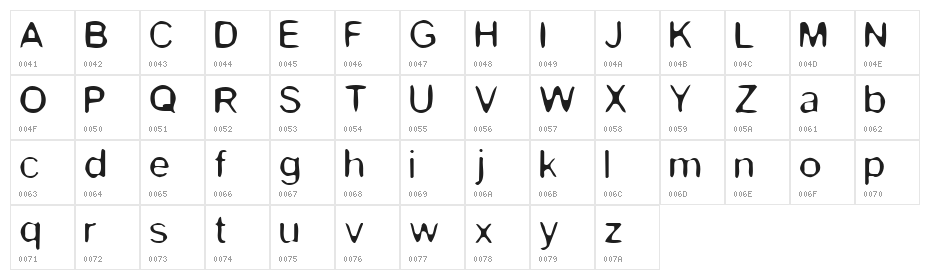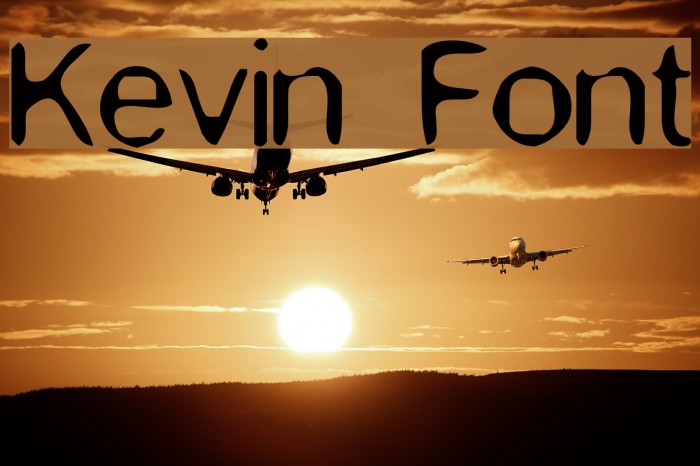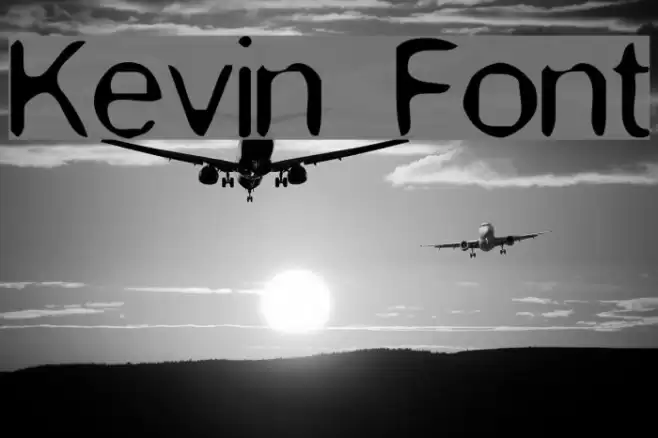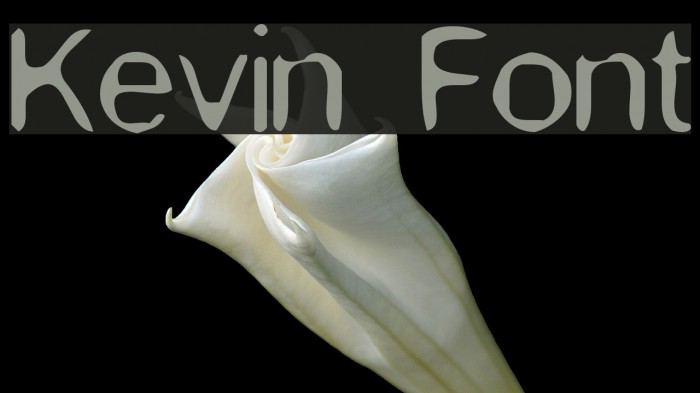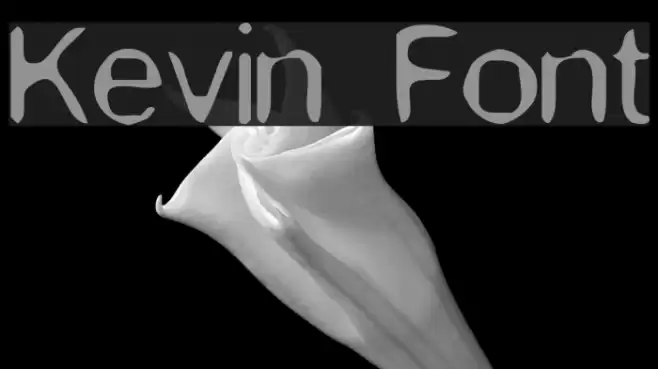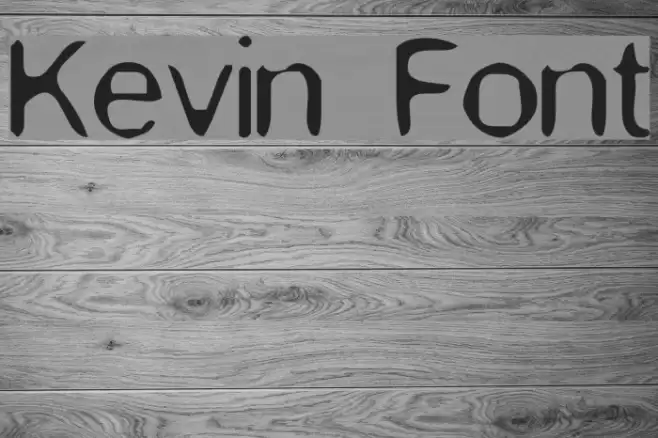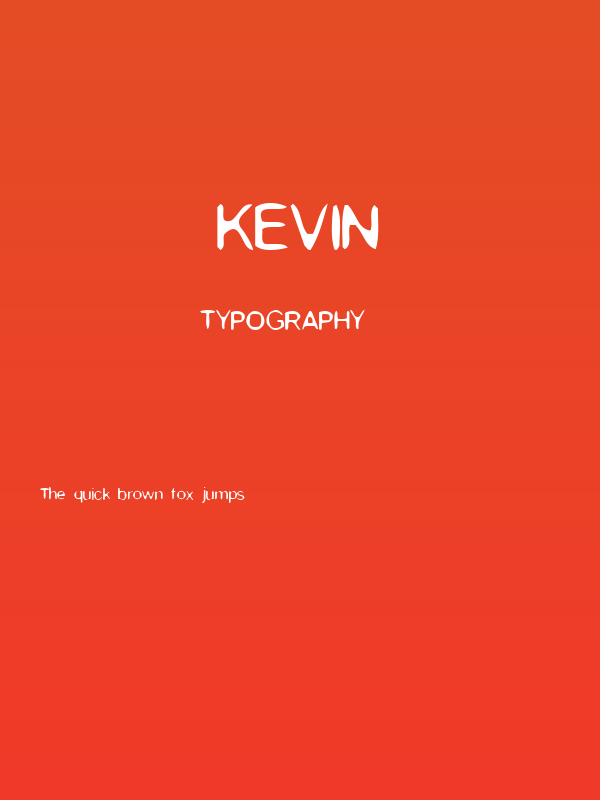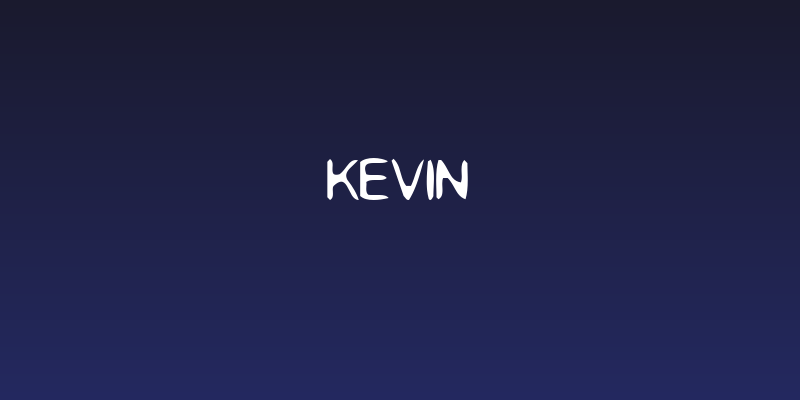
Kevin Font
Kevin Description
This font features a playful and organic design, characterized by its uneven, hand-drawn appearance. The letters have a whimsical quality, with varying stroke thickness that adds a dynamic and lively feel. The uppercase and lowercase letters maintain a consistent style, with rounded edges and a slightly irregular baseline, enhancing its casual and approachable nature. The absence of sharp angles and the presence of smooth curves give it a friendly and inviting look. This font is particularly suitable for creative projects that require a personal touch, such as children's books, greeting cards, or playful branding.
| Use Case | Creative projects, informal designs, children's materials. |
| Proposed Projects | Ideal for children's books, greeting cards, playful branding, and creative projects. |